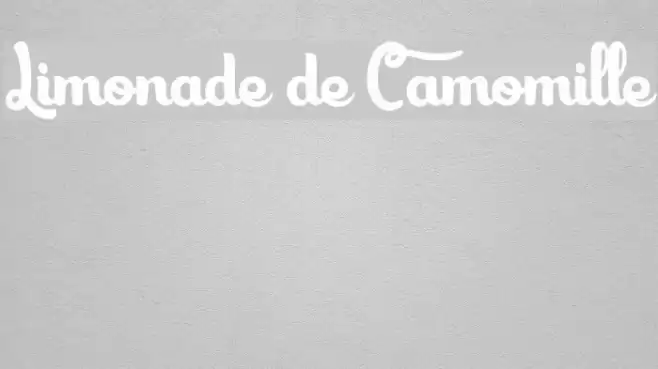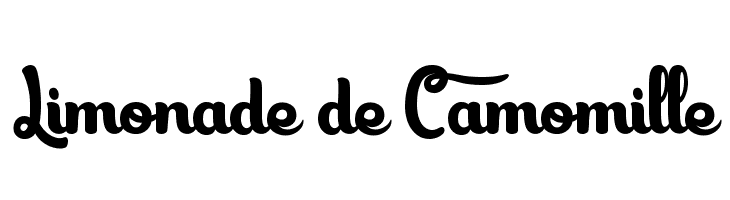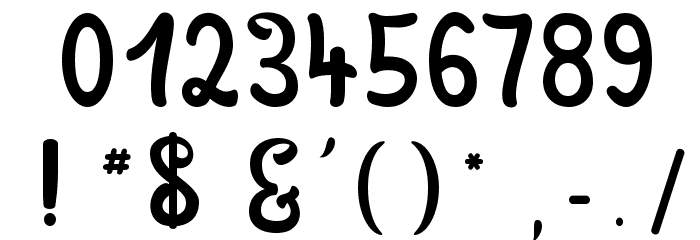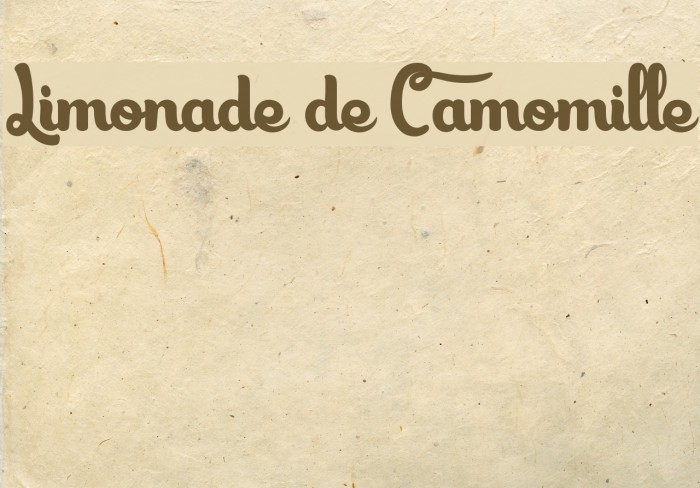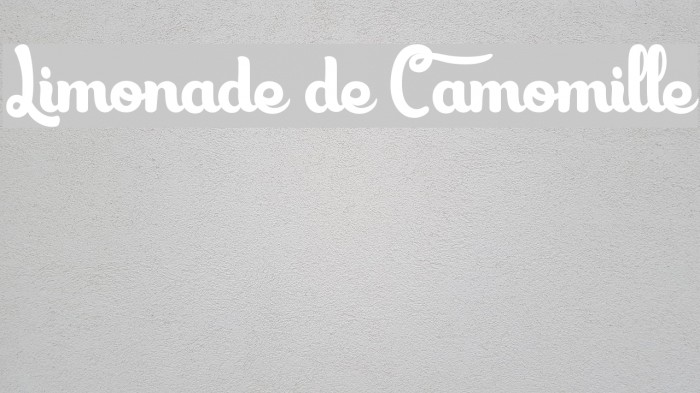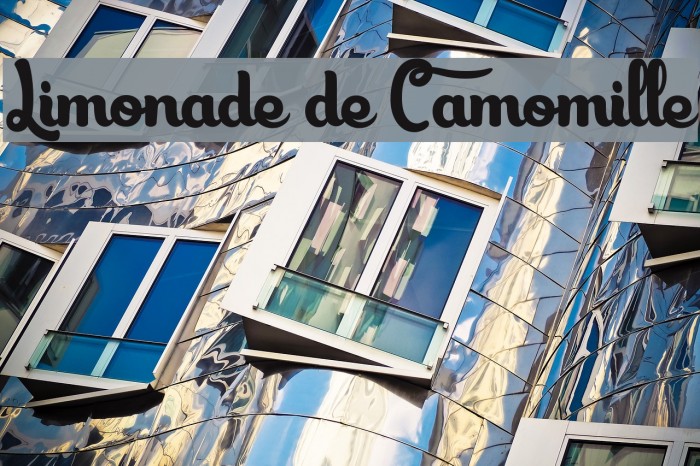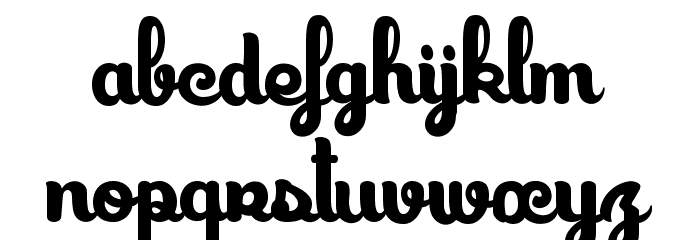
Limonade de Camomille Font
Limonade de Camomille Description
This font exudes a playful and whimsical charm, characterized by its bold, rounded strokes and flowing, cursive-like design. The uppercase letters are distinct with their exaggerated loops and curves, while the lowercase letters maintain a consistent, smooth flow. Numbers are equally playful, with a uniform thickness that complements the overall style. Special characters are creatively integrated, adding to the font's unique personality. This font is ideal for projects that require a touch of fun and creativity, such as children's books, playful branding, or artistic posters.
A playful, bold, and whimsical font with rounded, flowing strokes from Uncategorized fonts.
- Proposed Projects: Ideal for children's books, playful branding, artistic posters, and creative invitations.
- Overall Style: Playful, Whimsical